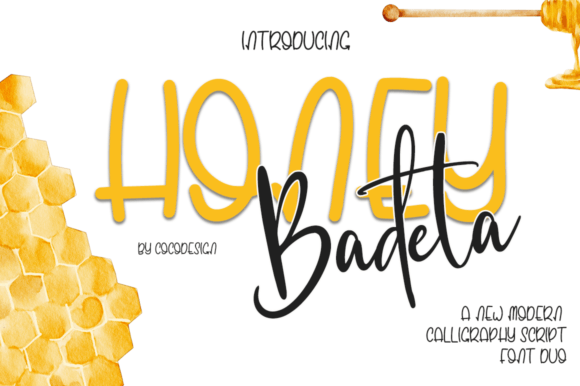
The Sweet Spot for Designers: Unlocking the Power of Honey Badeta Font
Have you ever stared at a blank page, trying to conjure up the perfect combination of words and visuals to capture the essence of your brand or message? We’ve all been there. But what if you could tap into a font that not only elevates your design game but also adds a touch of elegance and sophistication to your creations?
Enter Honey Badeta Font, a modern calligraphy design duo script that’s perfect for logos, product packaging, wedding invitations, and more. This versatile font is a treasure trove for designers, offering endless possibilities for creative expression. With its regular script style, Honey Badeta Font is a valuable addition to any designer’s toolkit, allowing them to craft unique and memorable designs that leave a lasting impression.
Honey Badeta Font Key Features
- Unique Characteristics: Honey Badeta Font features a distinctive, modern design with a mix of geometric and organic elements, making it perfect for creating unique and eye-catching designs.
Honey Badeta Font Review
Overall, I was excited to dive into the Honey Badeta font. Here’s my honest take on its strengths and weaknesses.
- The Honey Badeta font is a unique blend of elegant and quirky. It’s perfect for adding a touch of whimsy to your designs.
- The font’s irregularity makes it stand out from more traditional serif or sans-serif fonts.
- It’s well-suited for use in titles, headings, and other display text where you want to draw attention.
- The Honey Badeta font may be a bit too ornate for body text. It can be difficult to read in long blocks of text.
- The font’s uniqueness can also be a drawback in certain contexts. It may not be the best choice for projects where you want a more traditional look.
- The font’s availability in different weights and styles is limited.
Overall, the Honey Badeta font is a great choice for designers who want to add a bit of personality to their projects. Just be mindful of its limitations and use it in the right context.
Tips for Getting the Most Out of Honey Badeta
To get the most out of the Honey Badeta font, consider the following tips:
- Use it for headings and titles to add a touch of elegance and sophistication to your design.
- Pair Honey Badeta with other fonts to create a unique and eye-catching typography combination.